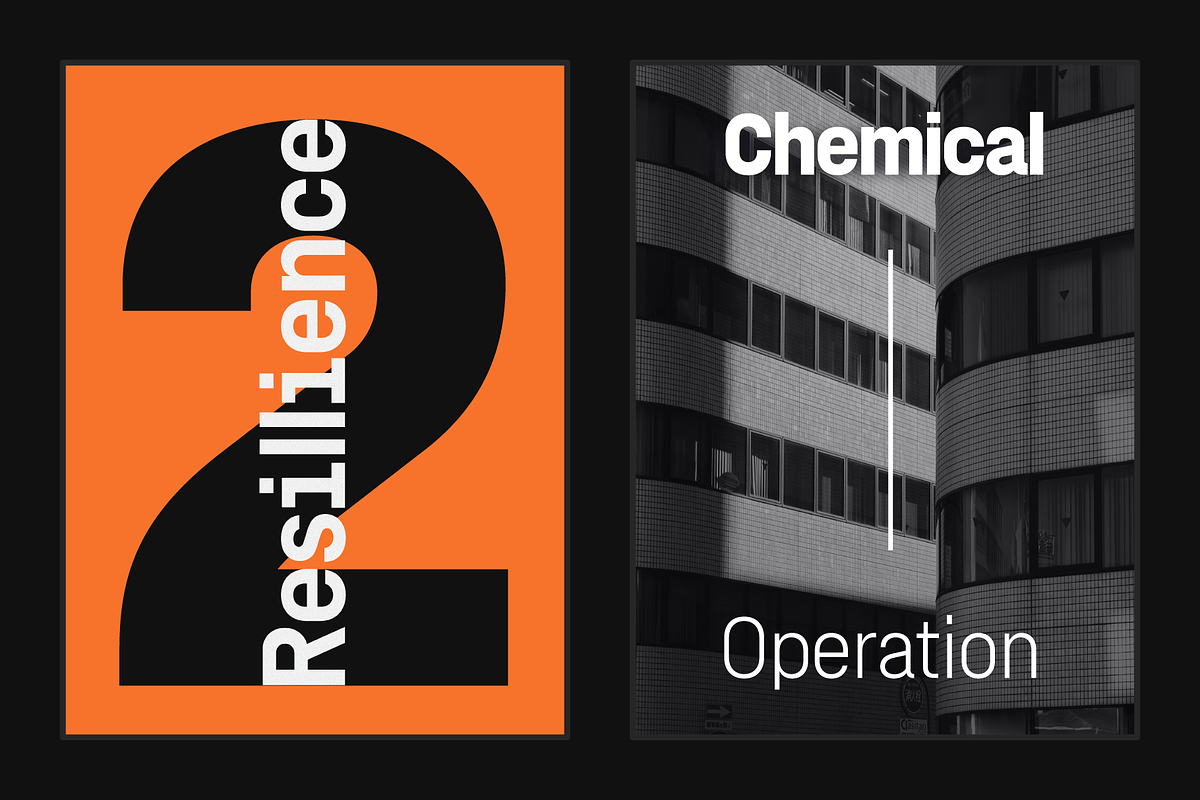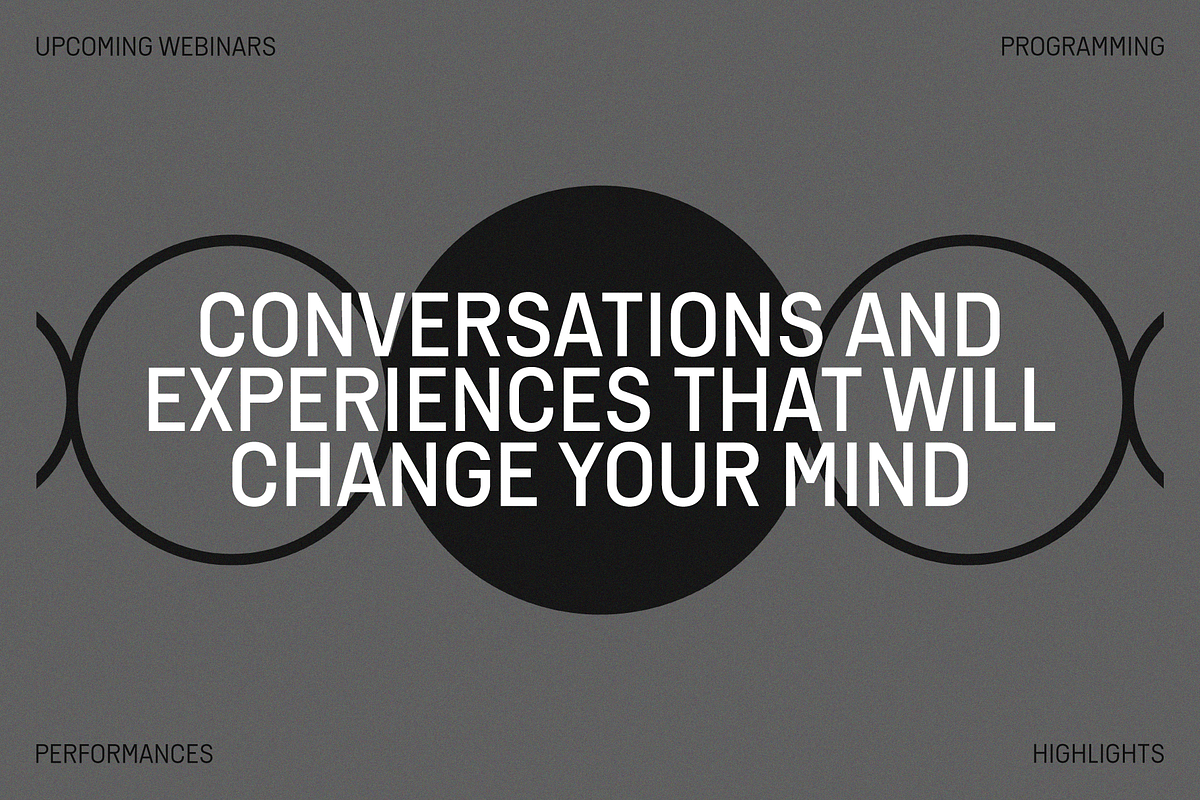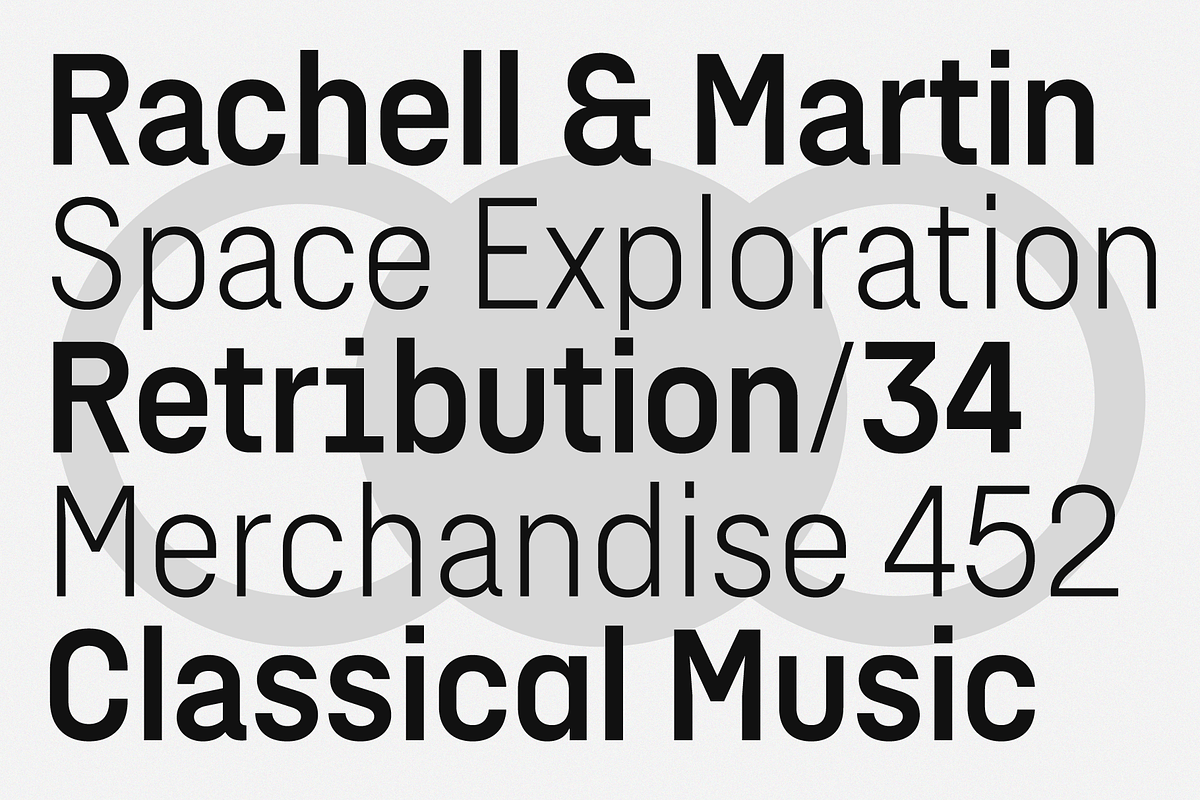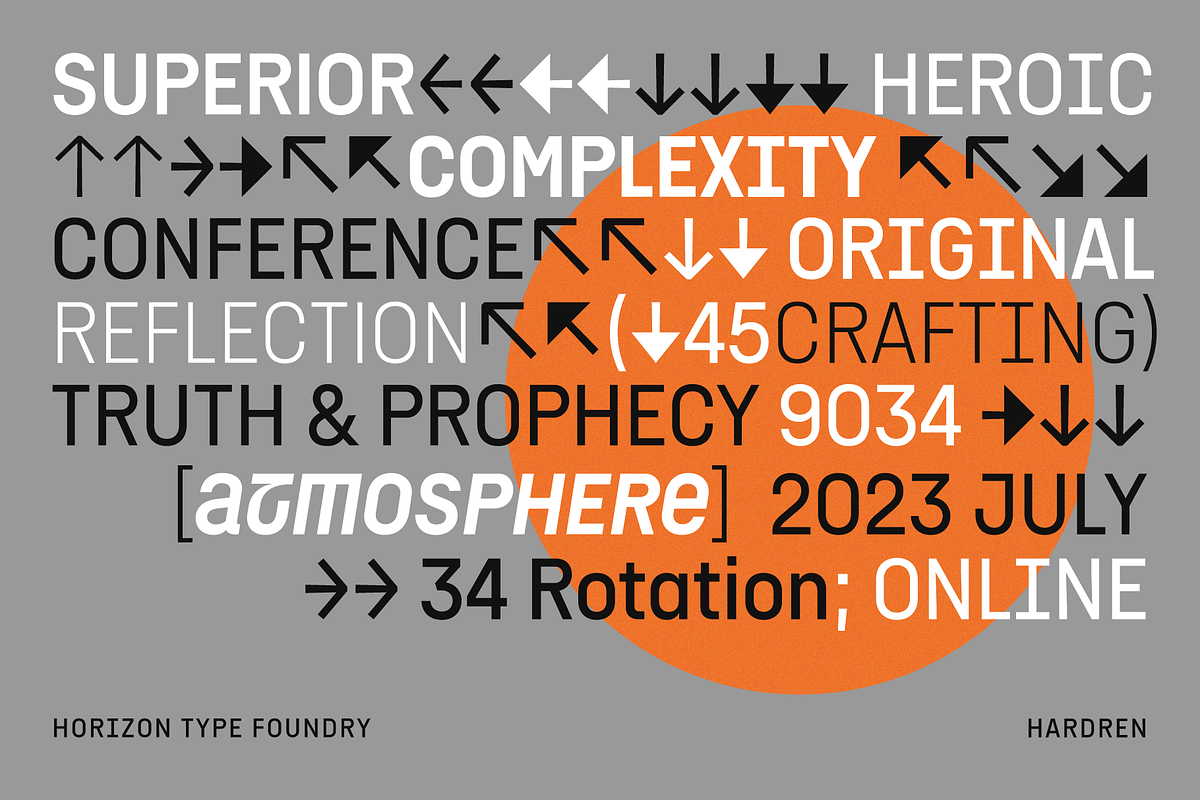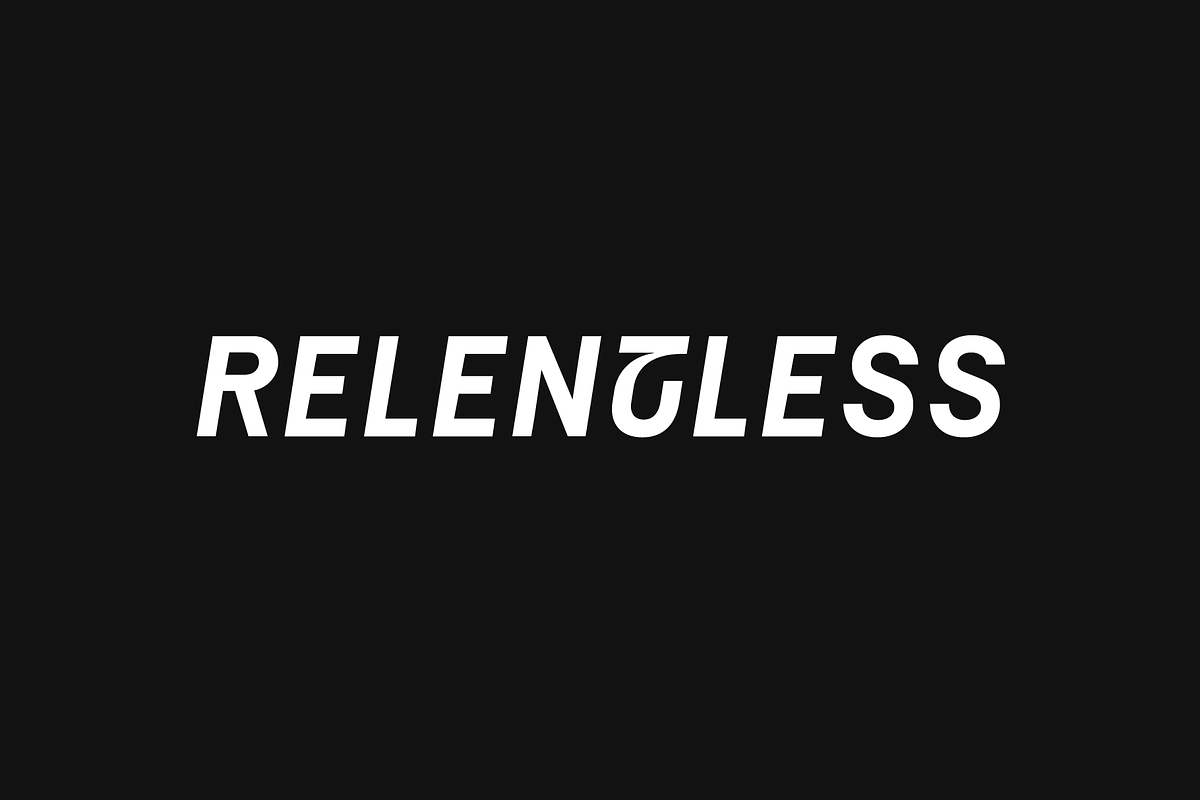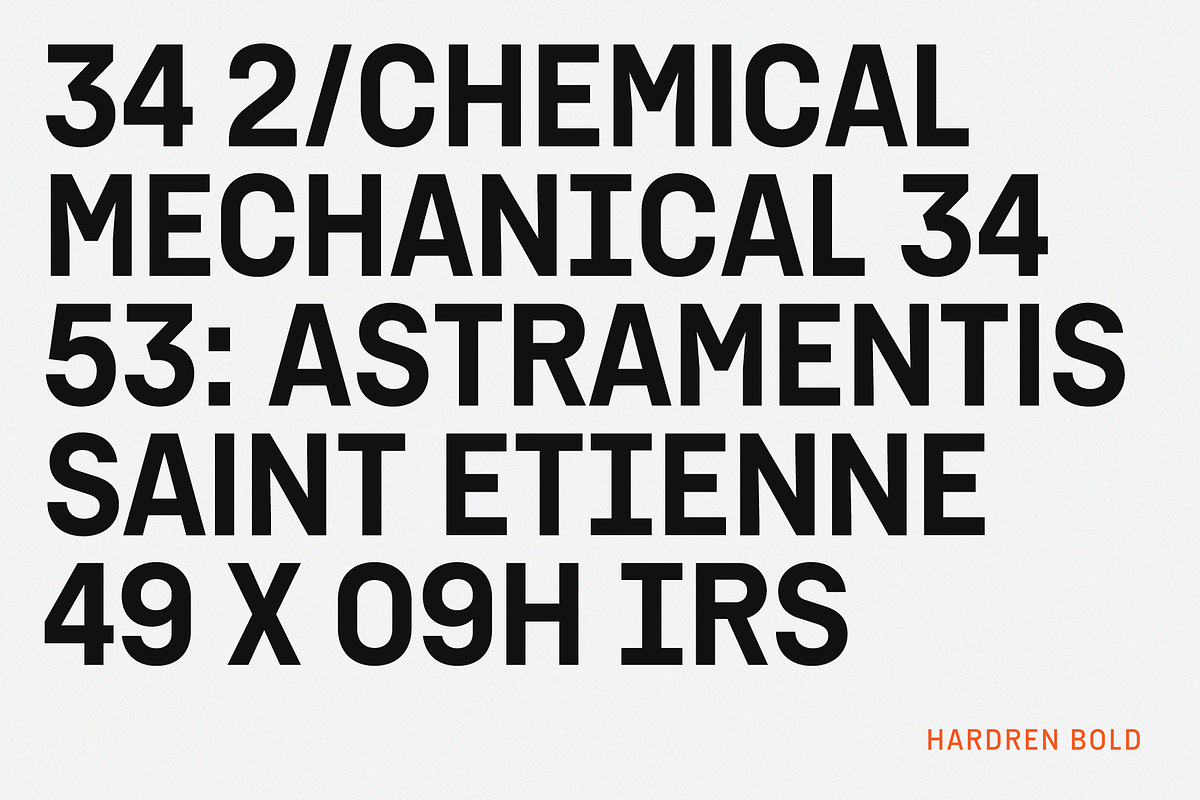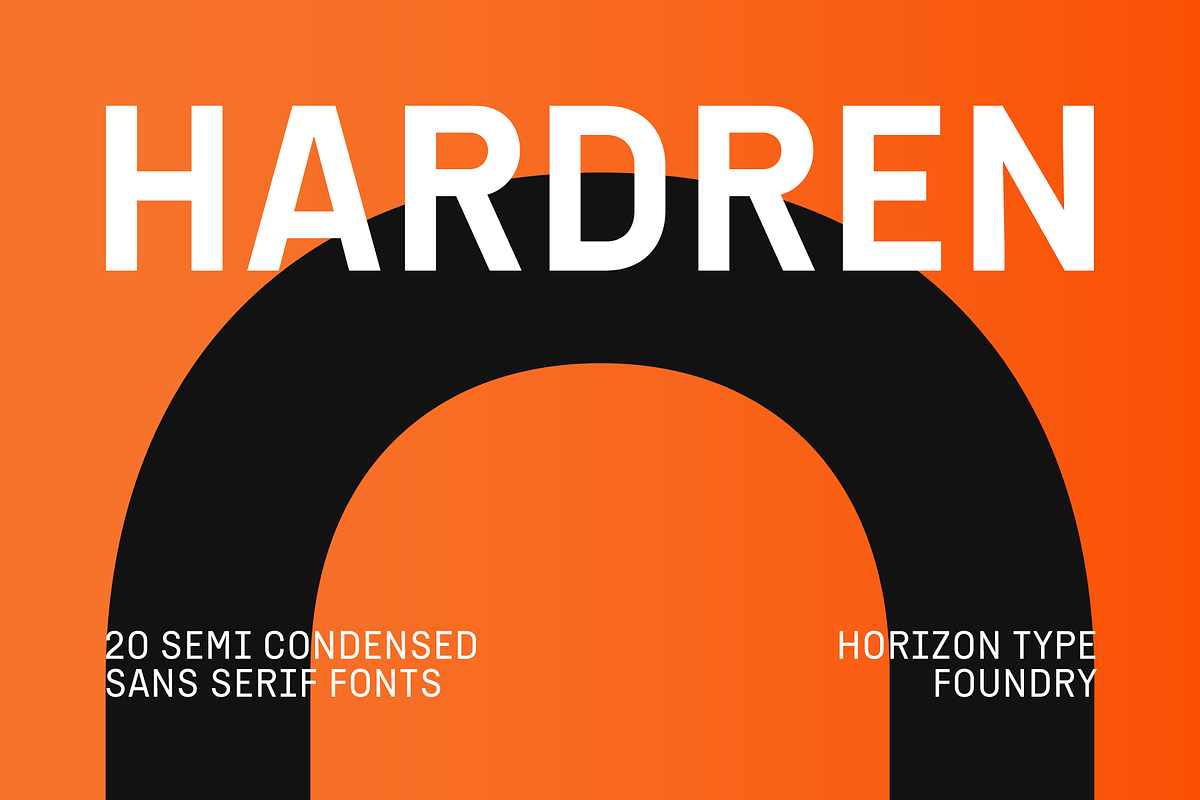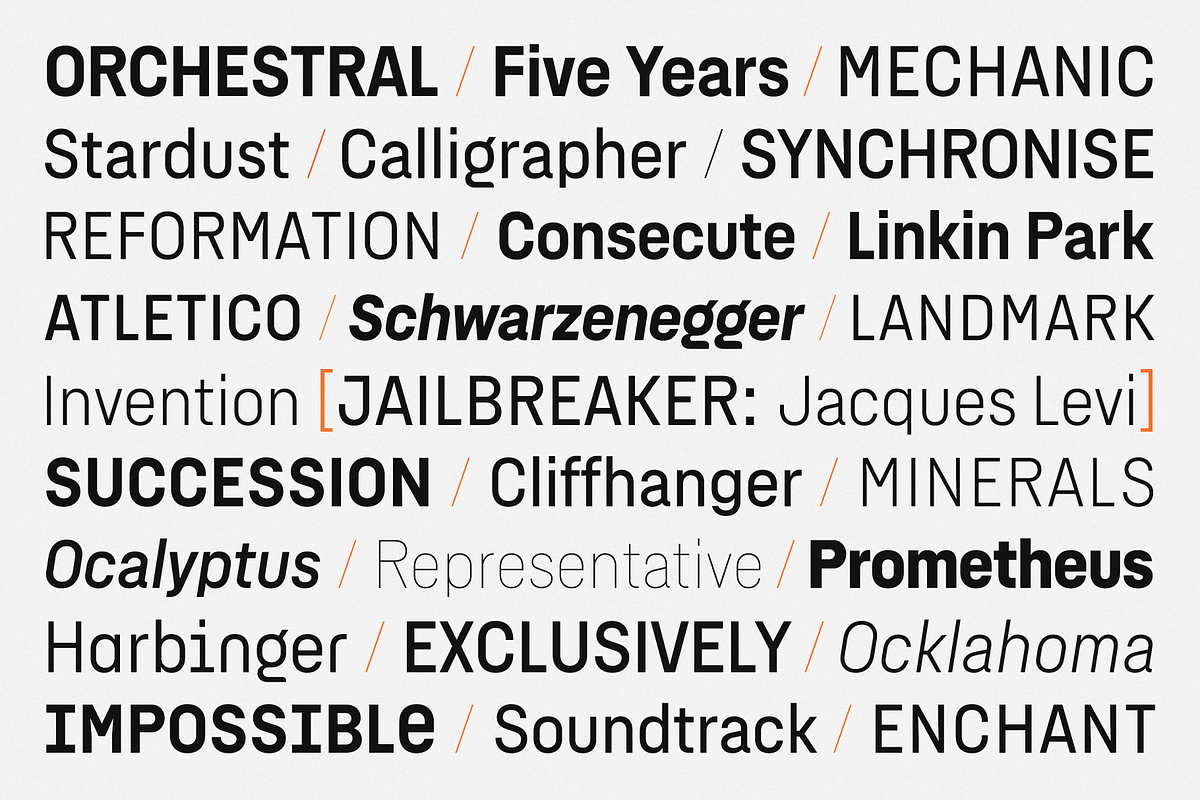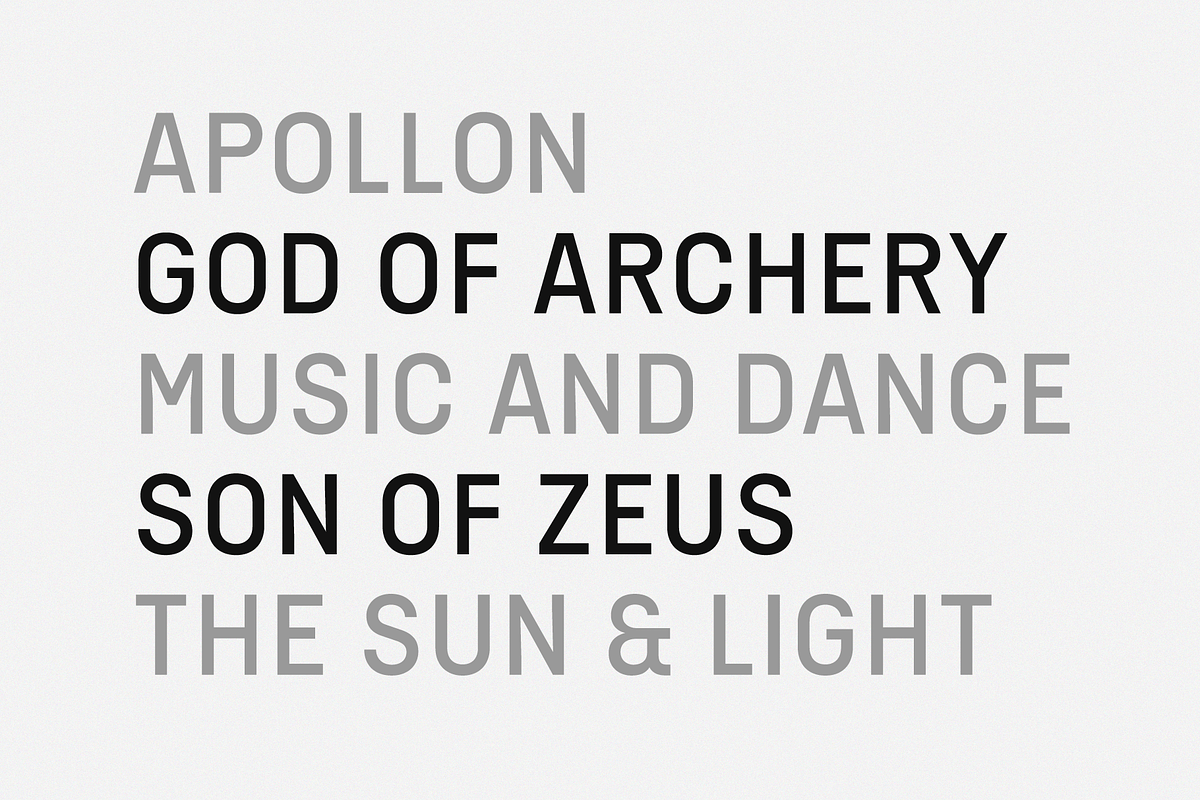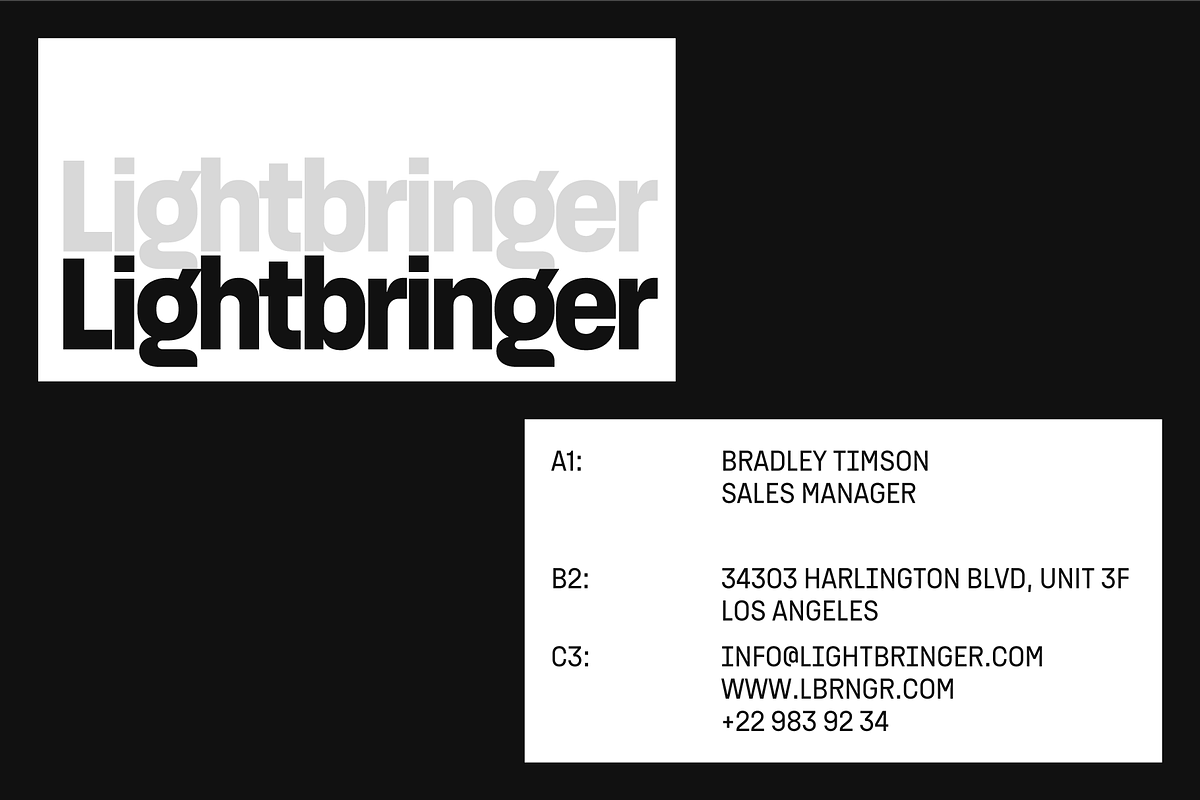
Hardren is a semi condensed sans serif typefamily. It has 20 weights 10 uprights and 10 italics.
Each weight includes 500+ glyphs, extended language support, fractions, tabular numbers, arrows, alternative characters(stylistic sets). Please see the pdf specimen for more information.